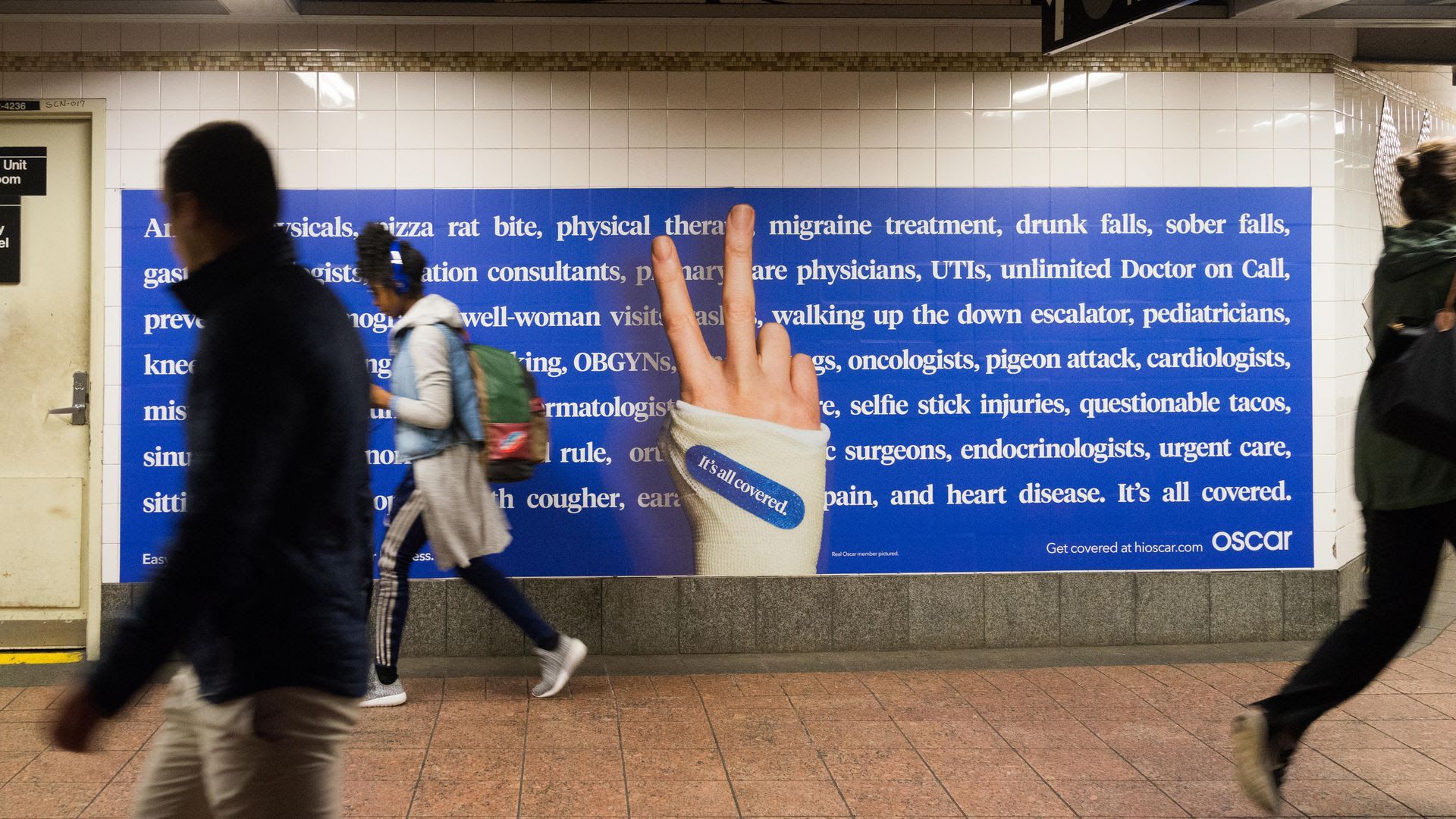
If you're a health care company looking to brand yourself as tech-forward but still approachable, you’re going to need a medium-weight serif font.
The intrigue: Flatiron Health, One Medical and Oscar all use strikingly similar typefaces in their marketing materials. Business Insider noticed this trend — possibly because it uses one of the same fonts.
Details: Flatiron and Oscar use a font called Tiempos, which you may also recognize from some Facebook marketing. One Medical uses GT Super, which it adopted along with a more muted color scheme as part of a rebranding last year.
Between the letters: Serif fonts (the ones with the little feet on each letter, like the one you’re reading now) are popular for large amounts of text, like newspapers and books.
How it works: Designers said they chose these fonts for these health care companies because they conveyed a warmth or human quality that more streamlined sans-serif fonts may lack.
- "It was really important to us that we didn't want to look like a traditional healthcare company but we also didn't want to look like a tech brand," Chris Peel, One Medical’s creative director, told Business Insider.